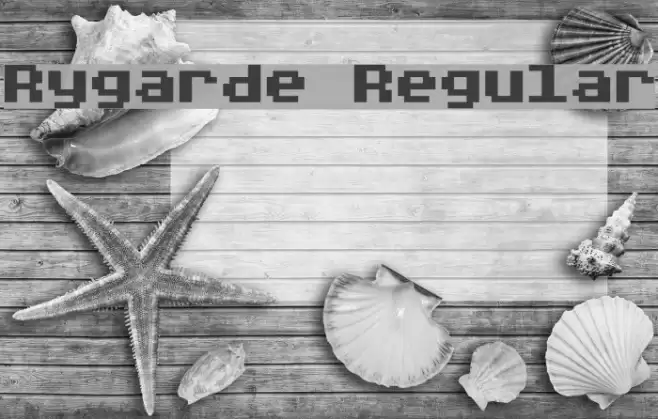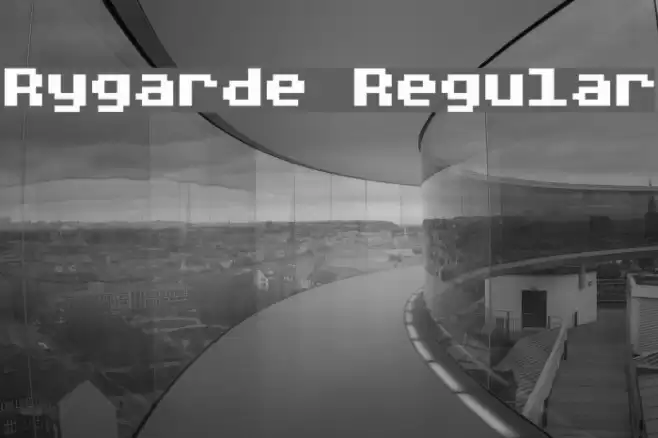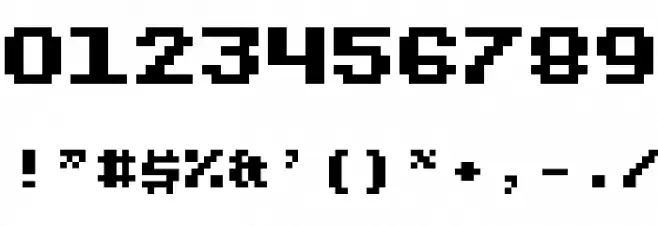
Rygarde Regular Font
Rygarde Regular Description
This font exhibits a bold, pixelated style reminiscent of early digital and video game typography. Each character is constructed with a blocky, grid-like appearance, giving it a distinctly retro and technological feel. The uppercase and lowercase letters maintain a consistent height, contributing to a uniform and cohesive look. The numerals and special characters follow the same pixelated design, ensuring visual harmony across all elements. This font's geometric and angular shapes make it highly legible, even at smaller sizes, while its boldness ensures it stands out in any context.
A bold, pixelated font with a retro digital aesthetic from Uncategorized fonts.
- Proposed Projects: Ideal for video game design, retro-themed posters, digital art projects, and any creative work that requires a nostalgic or tech-inspired look.
- Overall Style: Retro, Digital
- Use Case: Headlines, Logos, Digital Art